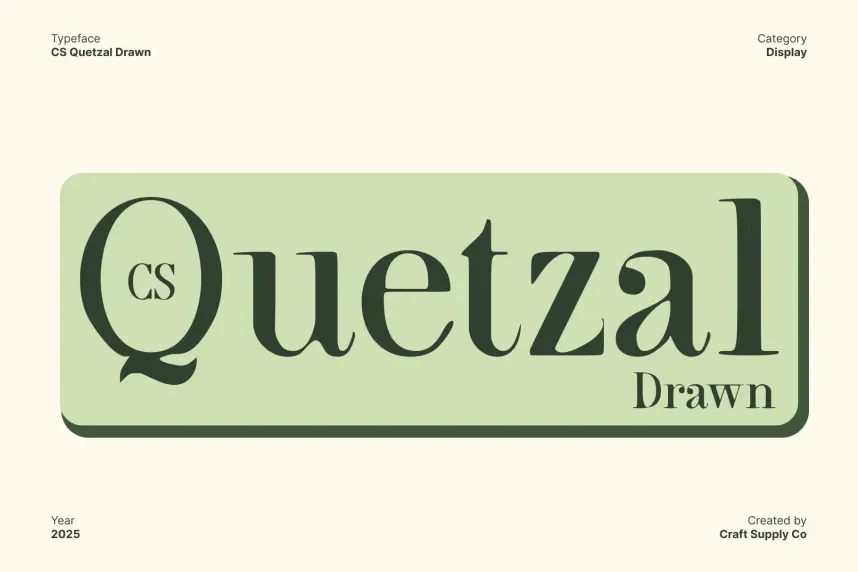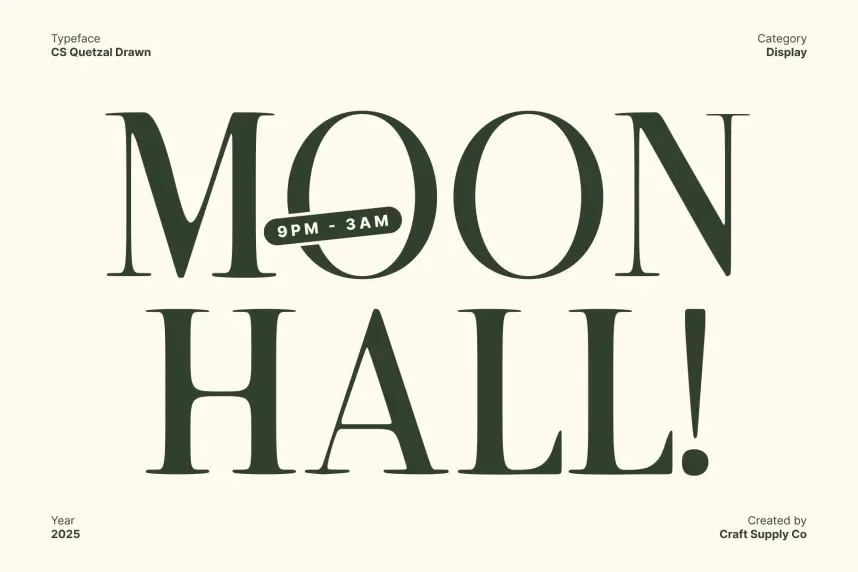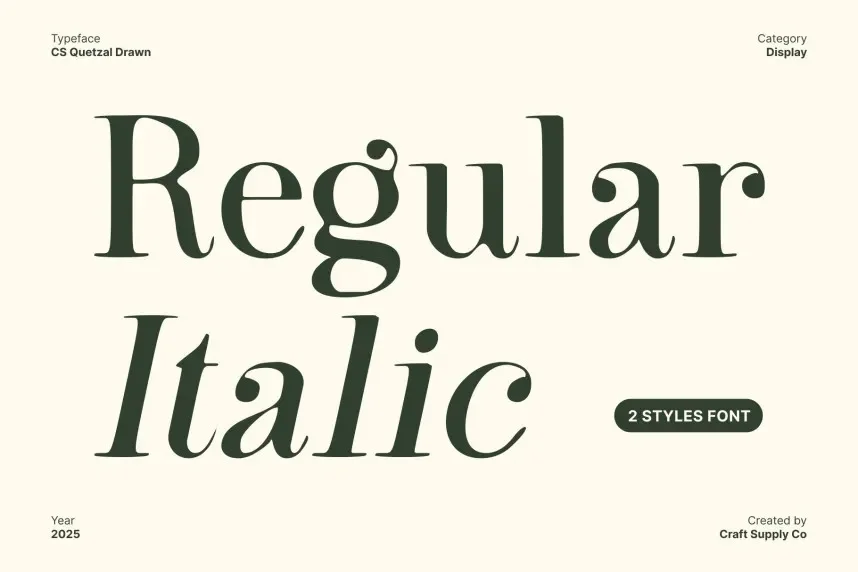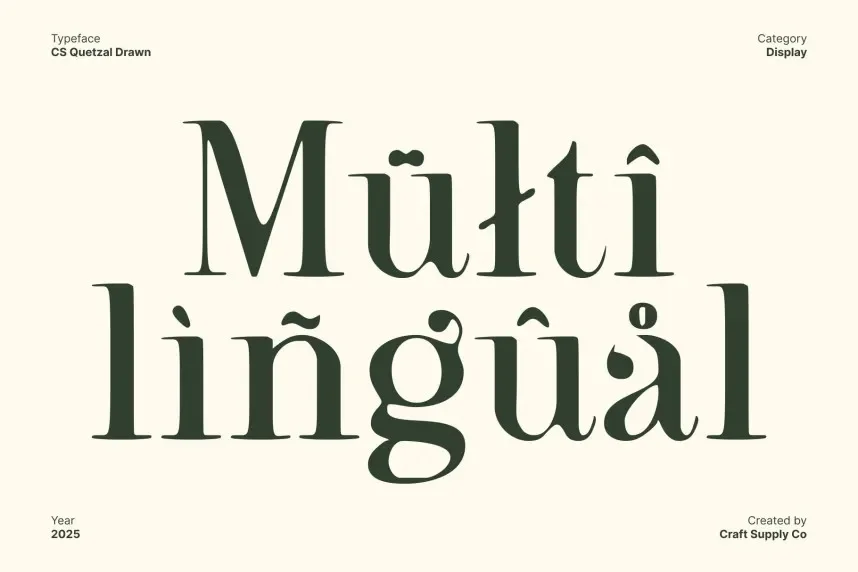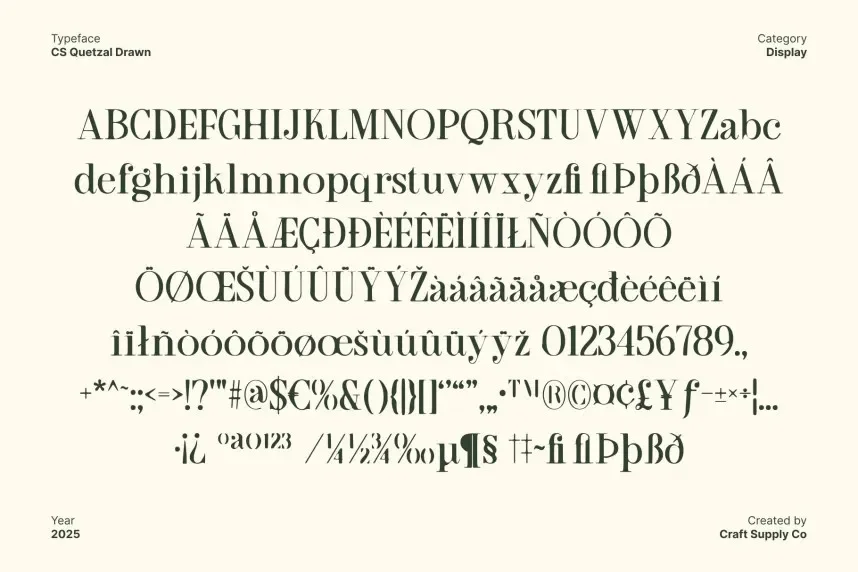
CS Quetzal Font is a hand-drawn display typeface with intricate details and bold strokes. Its artistic design makes it perfect for creative projects such as branding, posters, and digital artwork that need a unique, artistic touch.